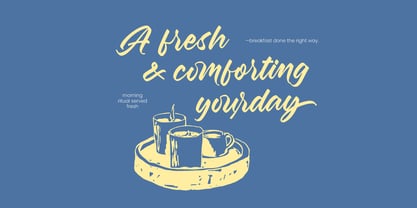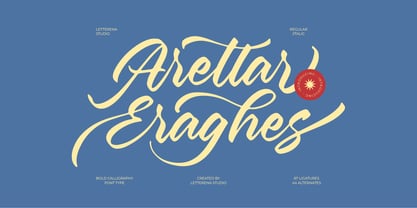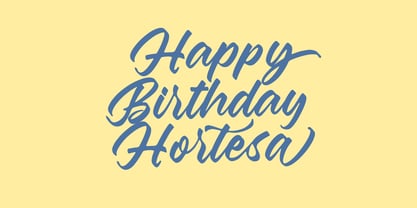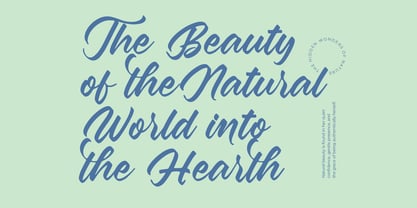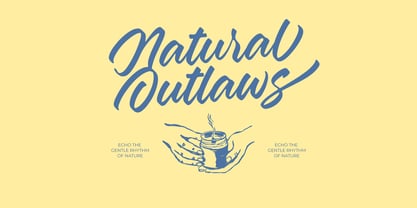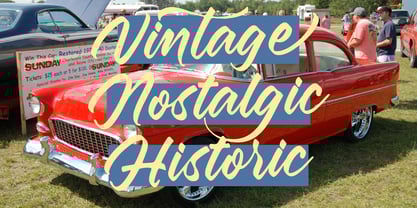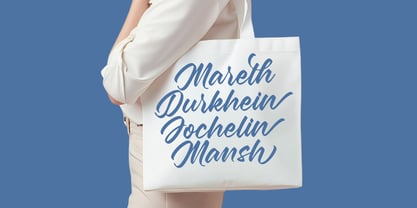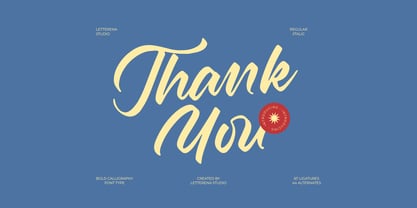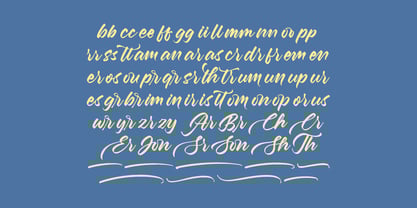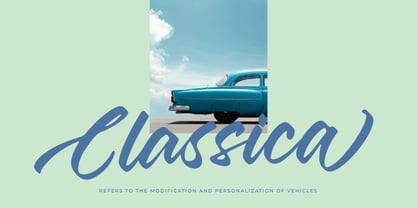
Aretlar Eraghes
The Aretlar Eraghes Font Family was designed by Heru Utama Putra and published by Letterena Studios. Aretlar Eraghes contains 2 styles and family package options.
Aretlar Eraghes is a bold modern calligraphy typeface designed with sweeping curves, expressive swashes, and a refined handwritten flow that brings a luxurious handcrafted feel to any visual project. With 67 elegant ligatures and 44 stylistic alternates, this script font delivers high versatility for branding, wedding invitations, product packaging, boutique logos, social media graphics, and expressive display headlines. Its confident strokes, fluid rhythm, and premium pen-calligraphy style make it a standout choice for designers seeking a sophisticated script font that balances personality, clarity, and visual impact.